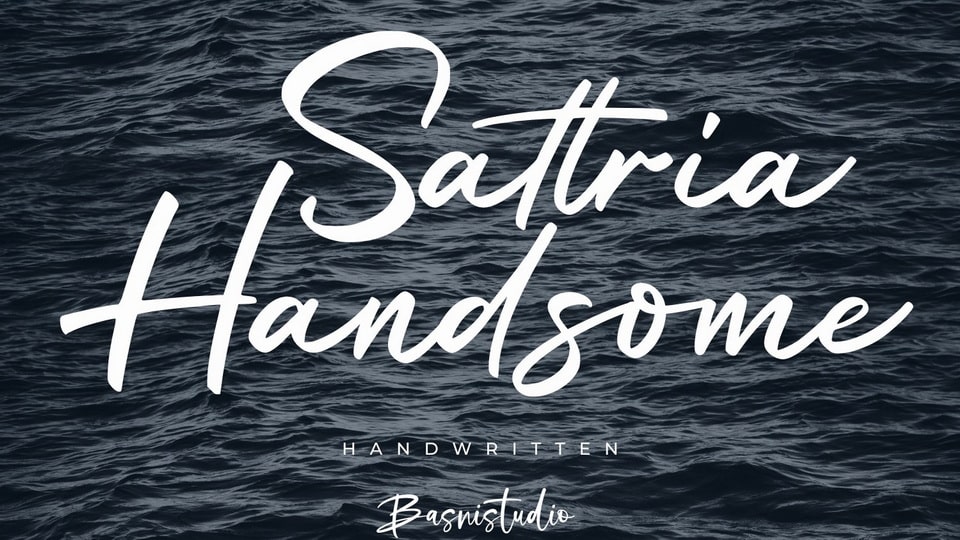
Download Sattria Handsome font, a simple and casual handwritten typeface, made with natural style and precision strokes, perfect for branding, websites, and editorial designs.